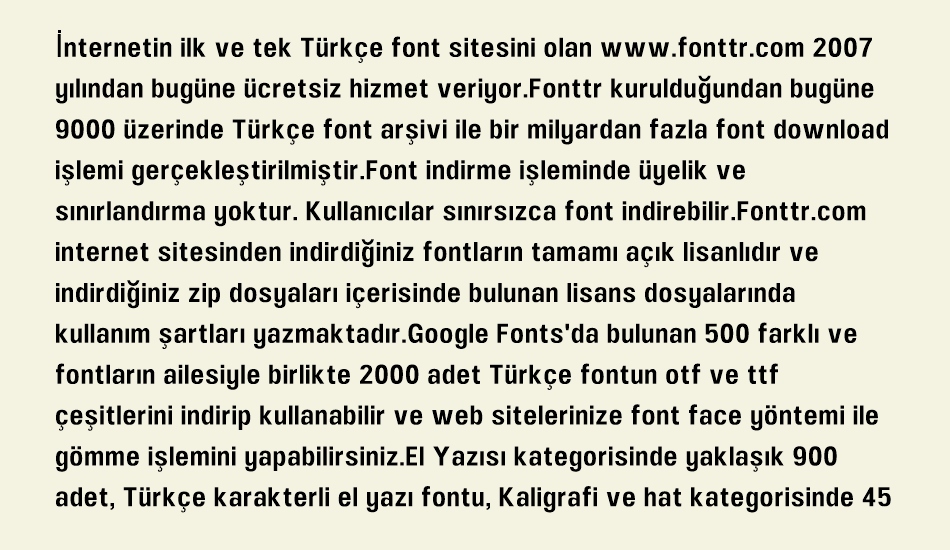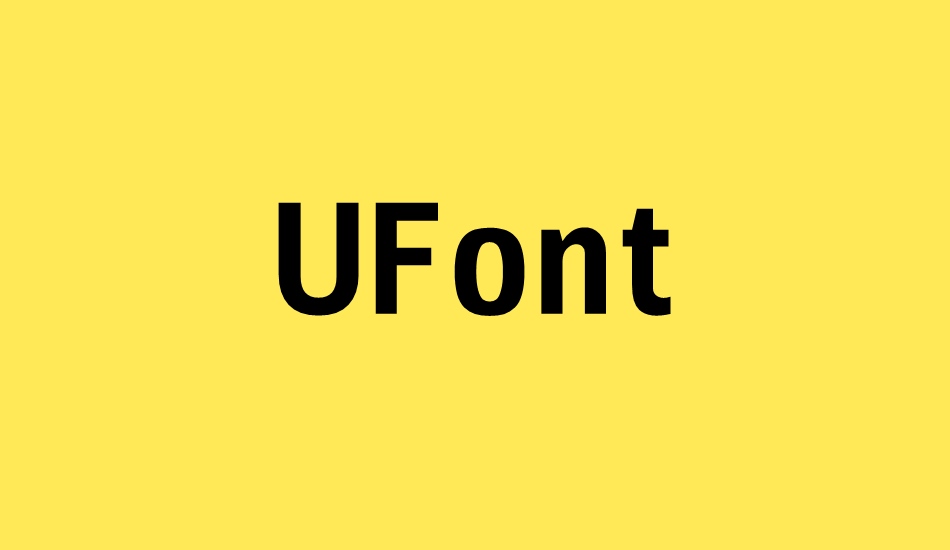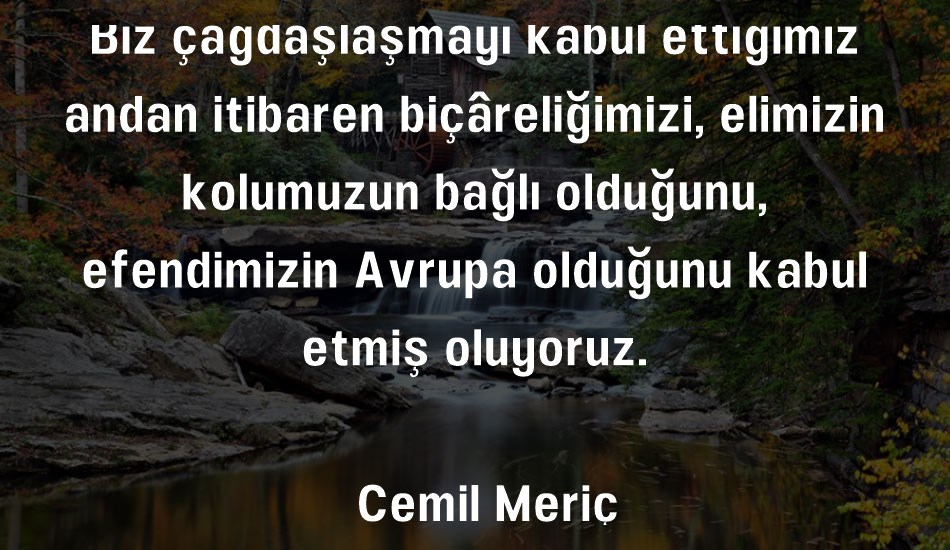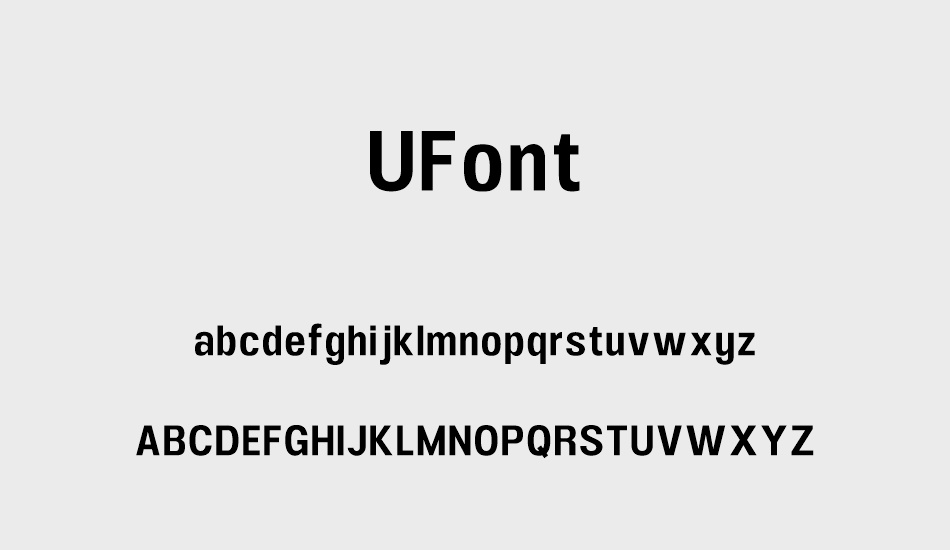
UFont font
UFont
This is the first release of UFont Sans. This font started out as a logo design project for UTrition (http://www.utrition.co.uk/). It already has an extended character set and I have plans to add to this in due course.